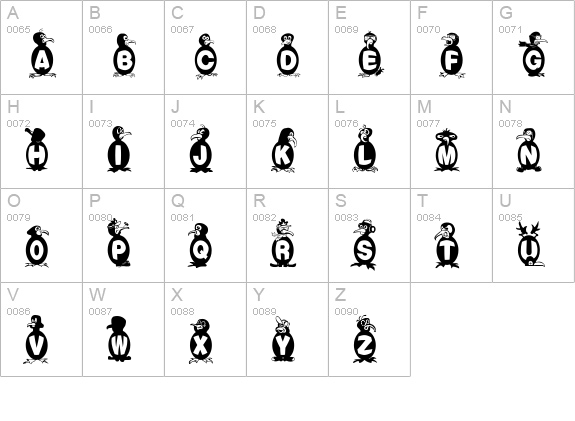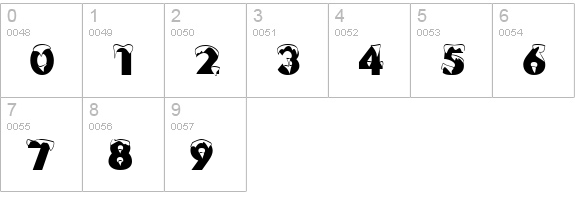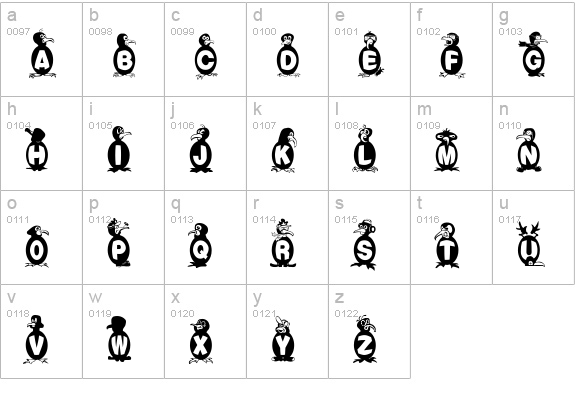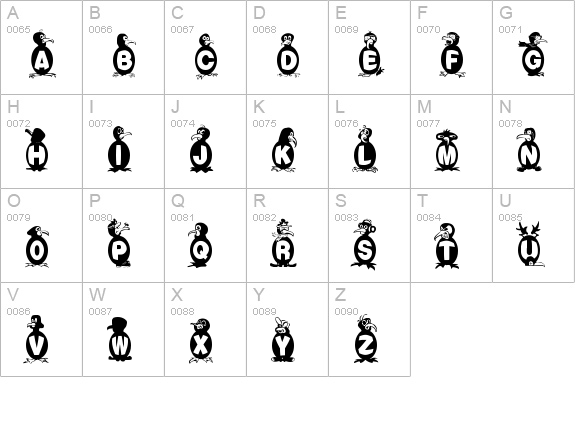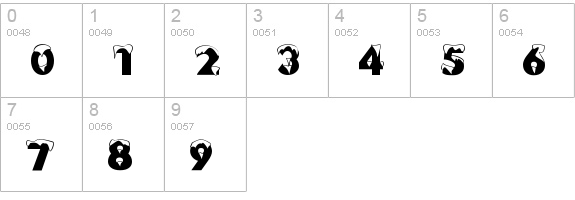
Introducing Flying Penguin font, a whimsical and playful display typeface that will add a touch of fun to your design projects. This font features unique, hand-drawn letters with a quirky twist, perfect for creating eye-catching headlines, posters, and branding materials. The Flying Penguin font is inspired by the joyful spirit of penguins taking flight, embodying a sense of freedom and creativity. The best part? Flying Penguin font is completely free to download at FontsMarket.com, making it accessible to designers of all levels. Whether you're working on a personal project or a client commission, this font will help you stand out and make a memorable impression. Embrace the free-spirited charm of the Flying Penguin font and let your creativity take flight!